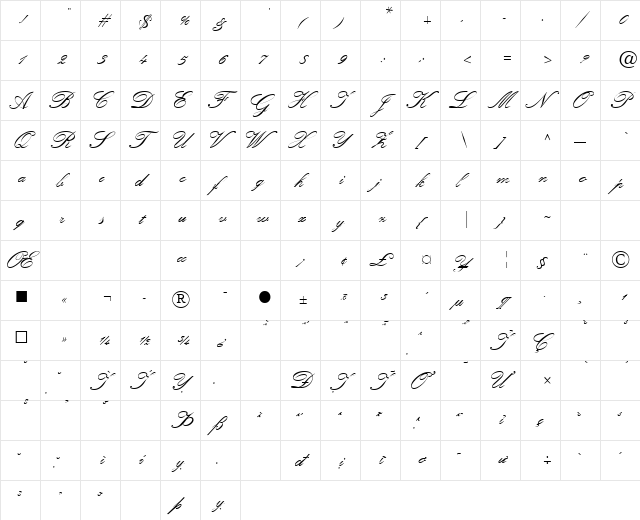
VNI-Kun Normal
Design Context for VNI-Kun Typeface
VNI-Kun is a composed and adaptable typeface that performs quietly and consistently across a wide range of design contexts.